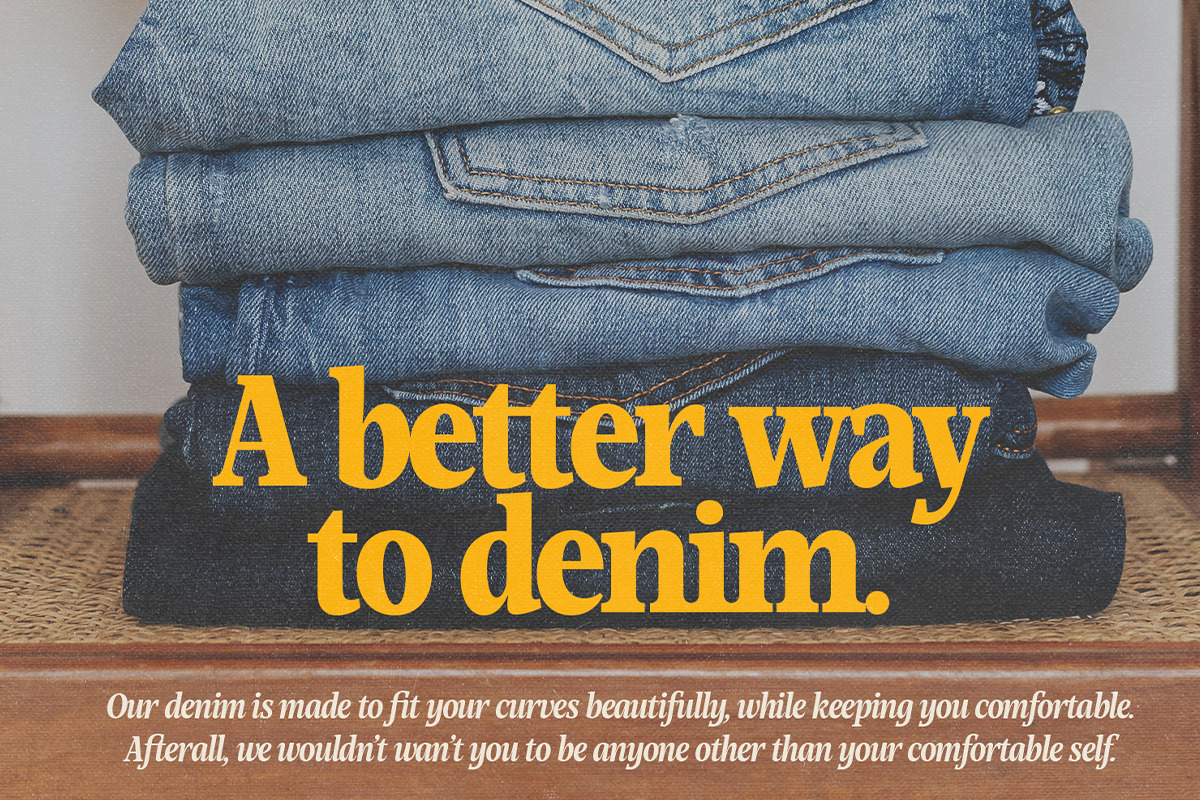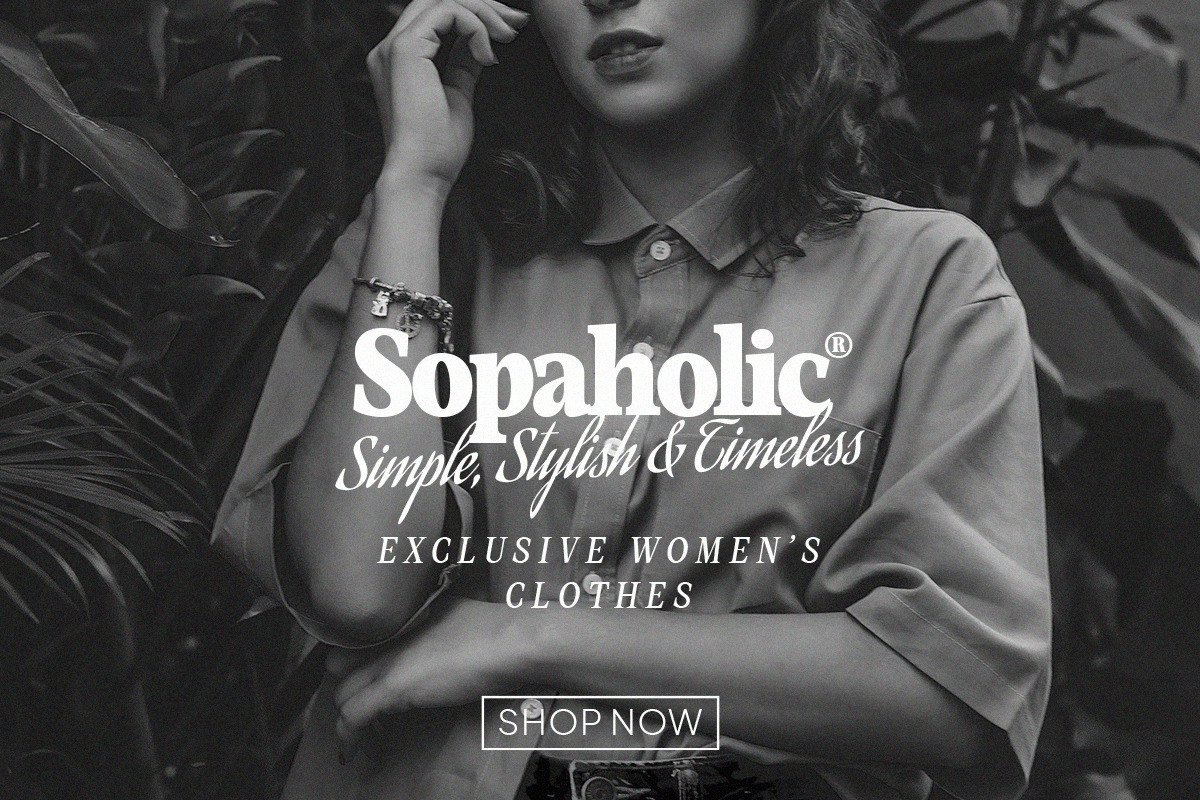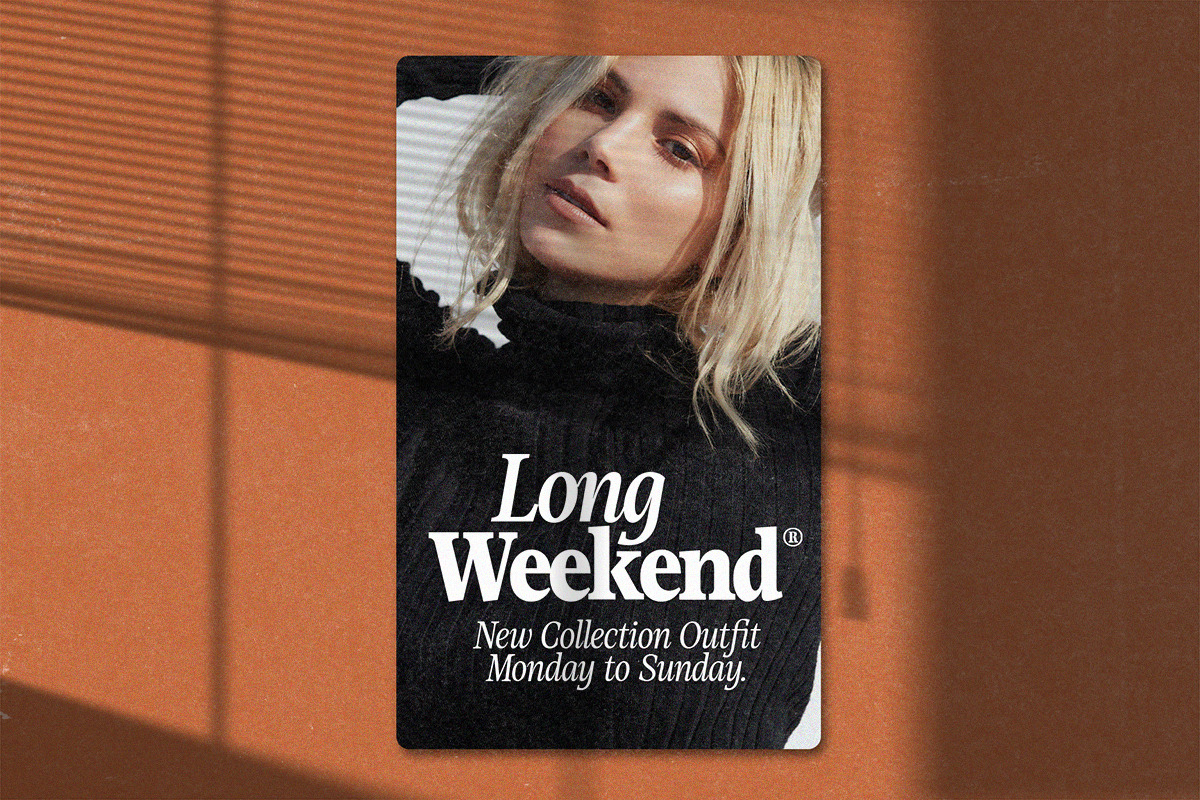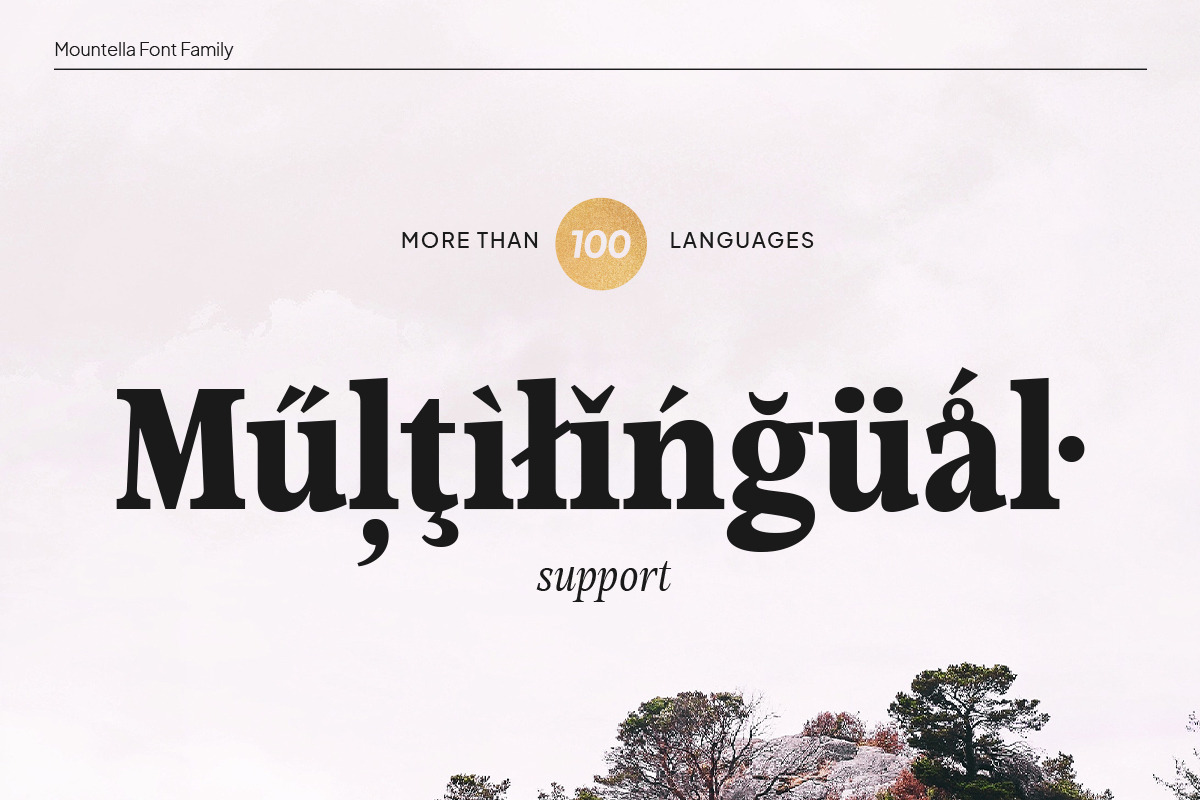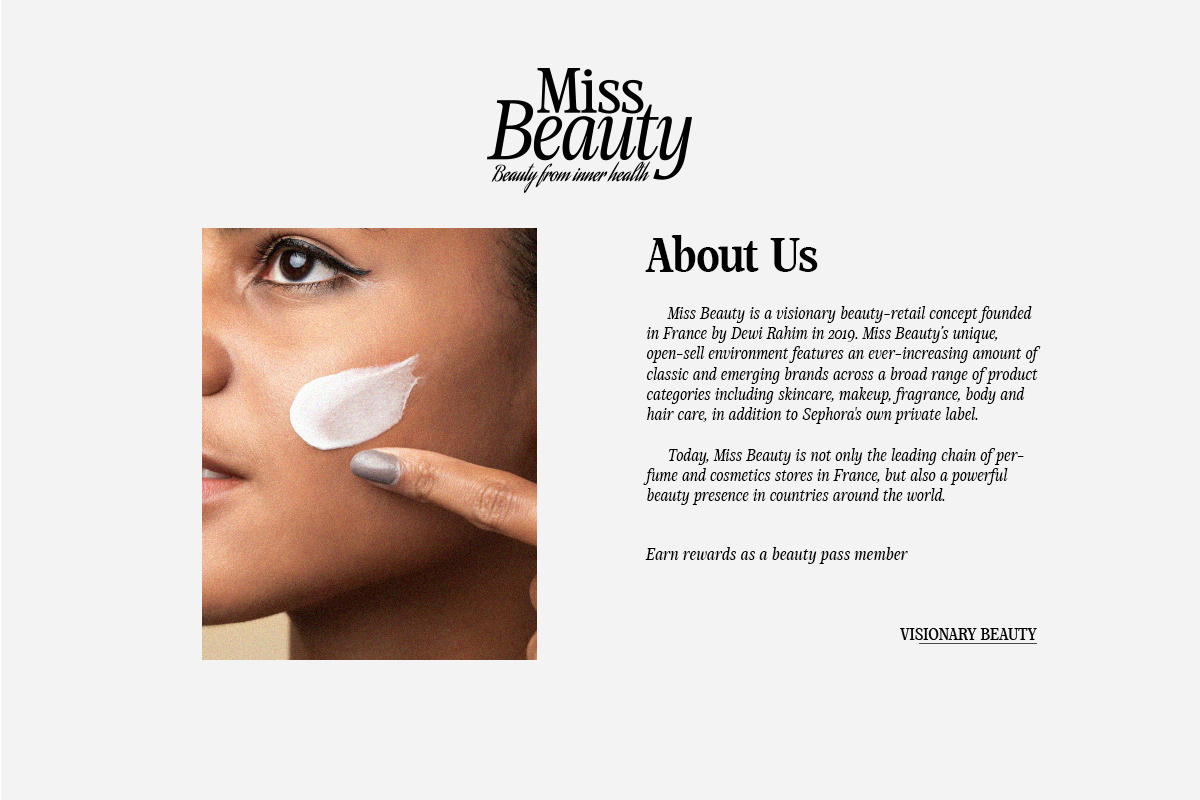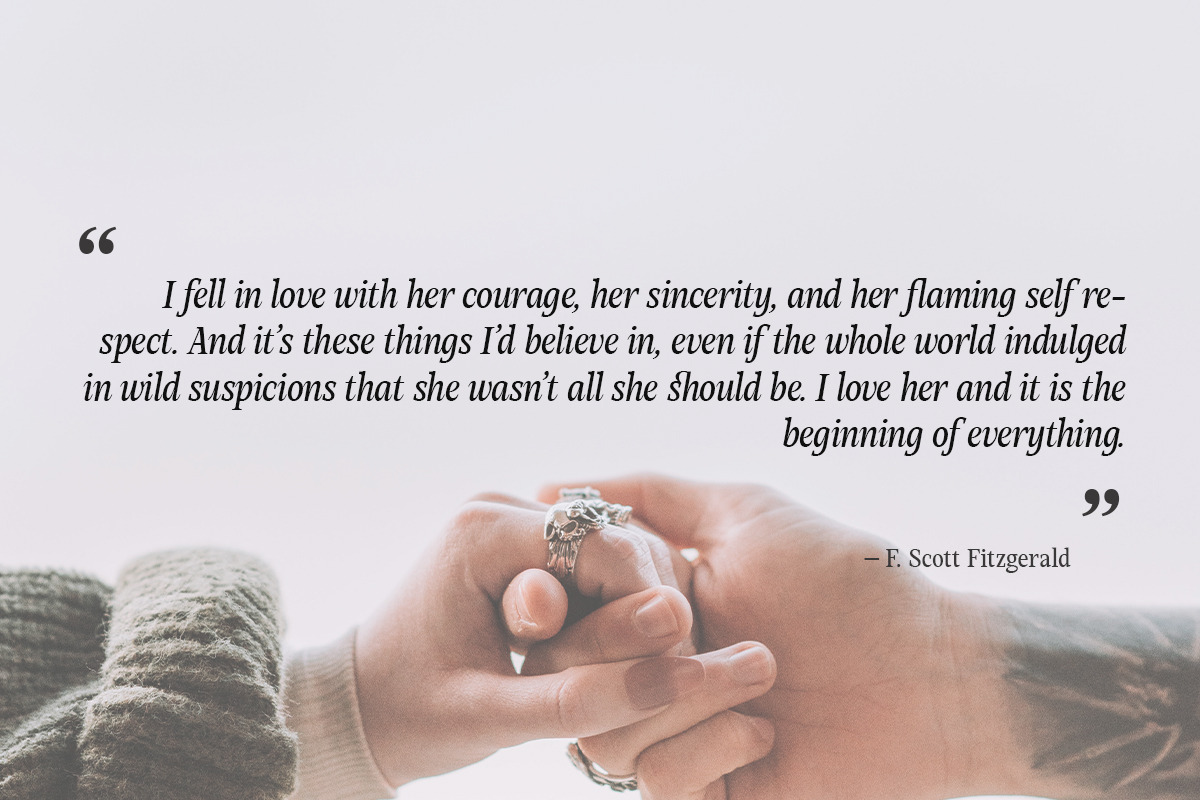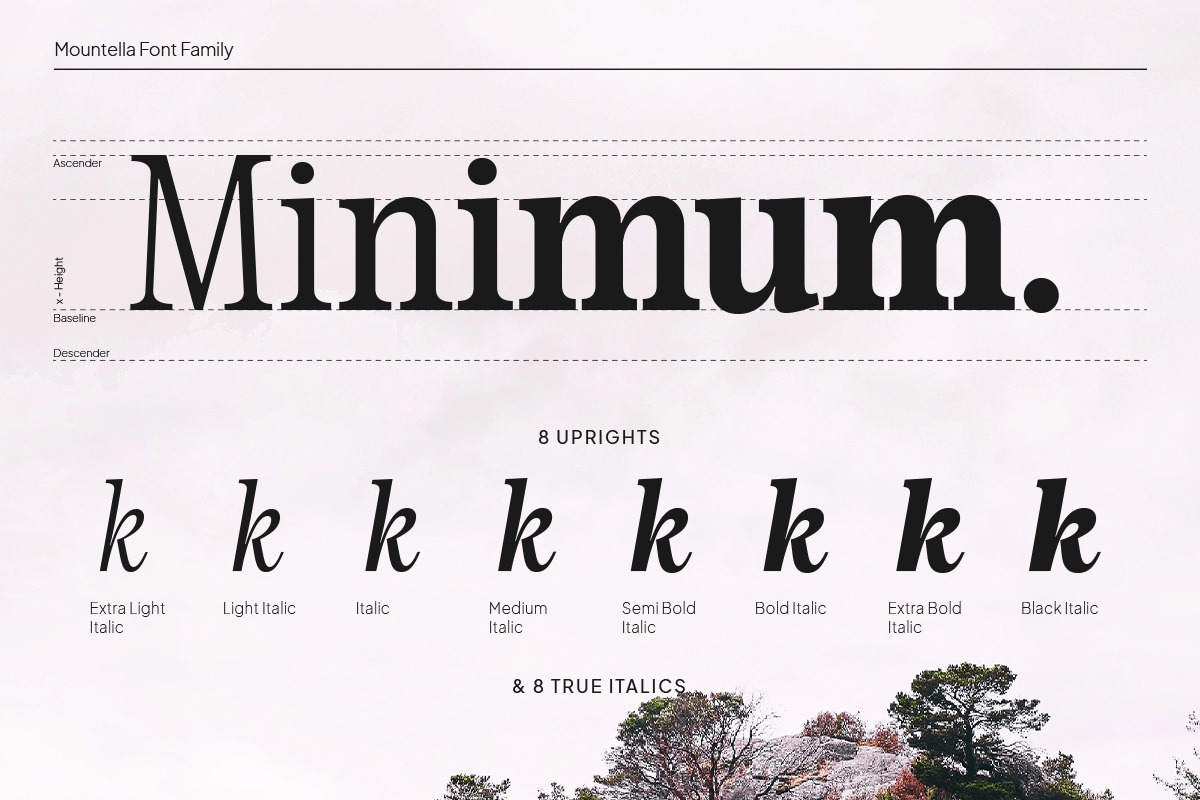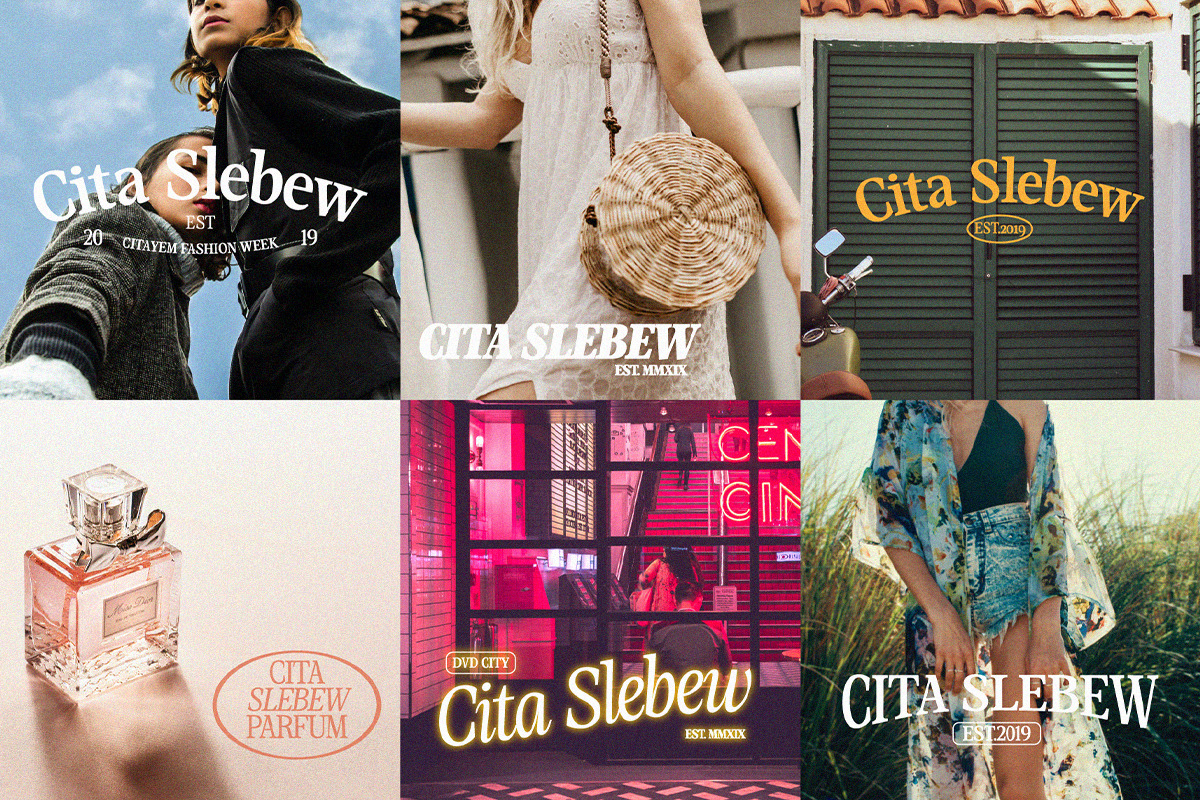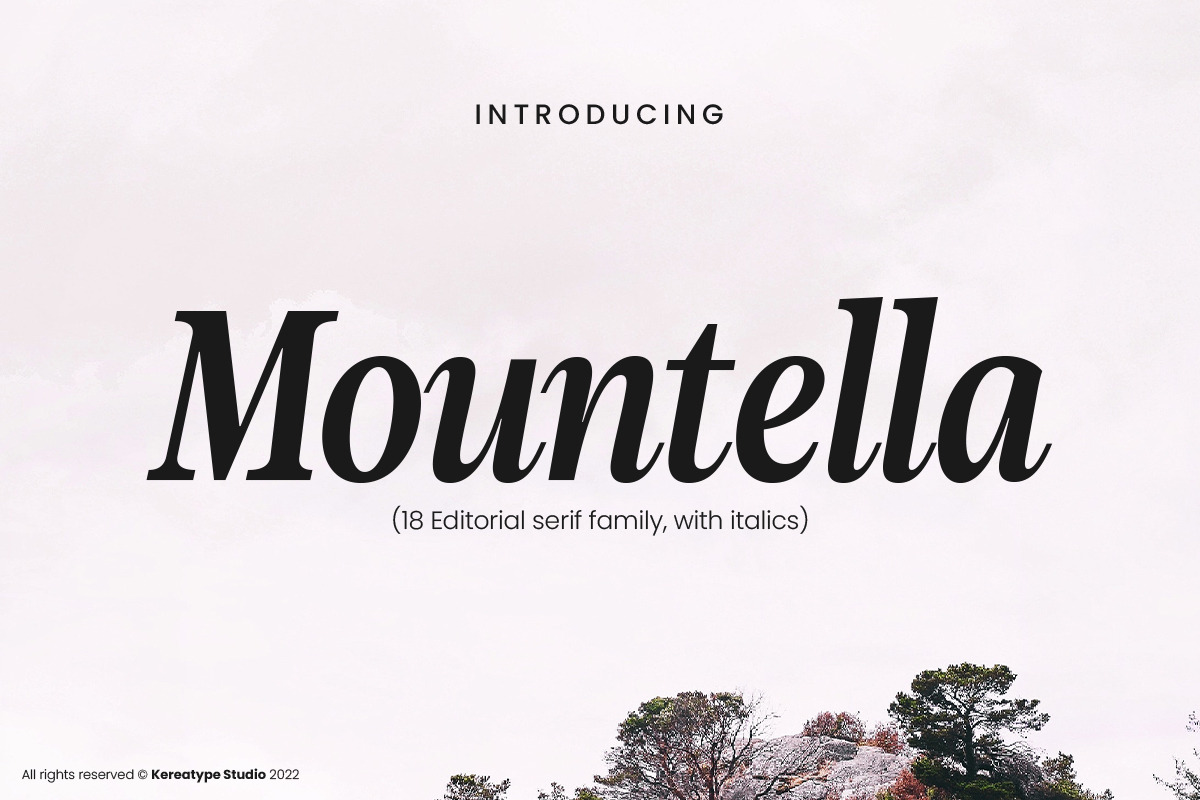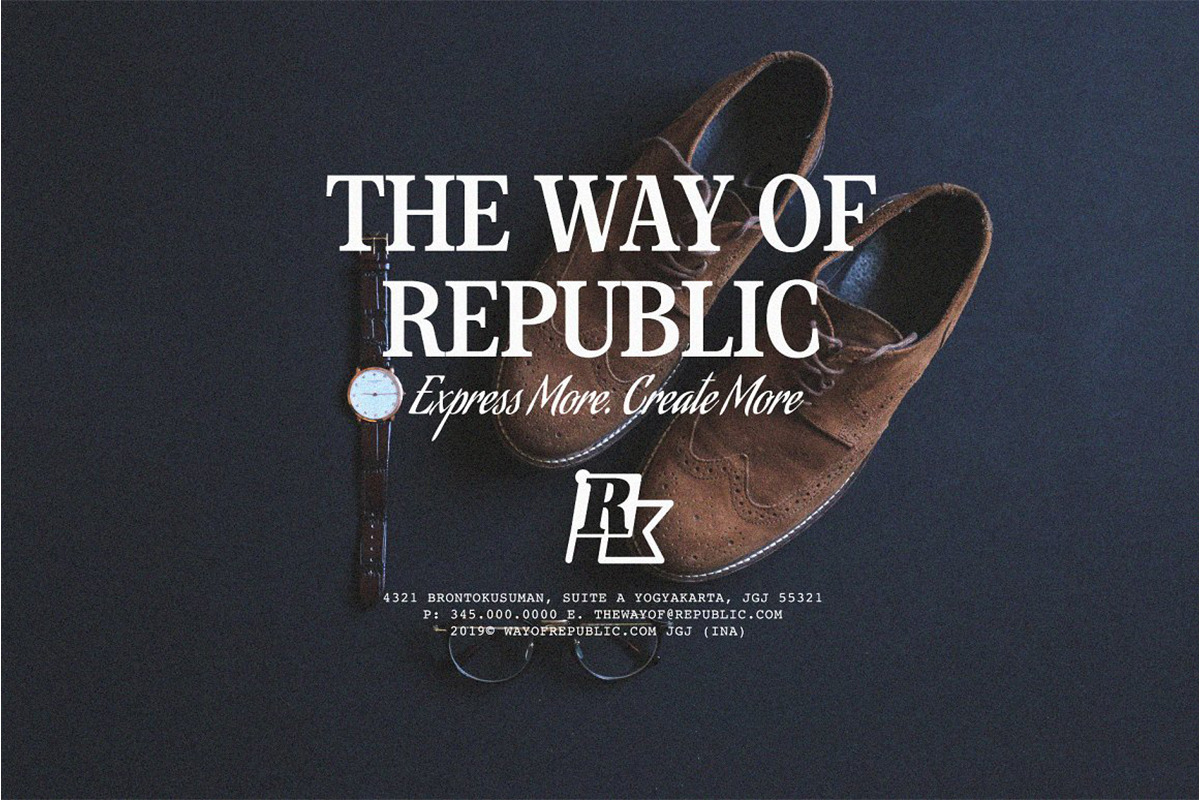
Mountella - 18 Serif Font Family
Mountella is a modern editorial serif font family that includes 18 fonts, uprights, italics, and 2 variable font from Extra Light to Black which has more than 500 characters, and still has all the nostalgic vibes!
Mountella is a beautiful serif family that includes many visual details, adding uniqueness that looks incredible in both large and small settings as a display and body text. Mountella can be used in high-end branding, logo designs, magazines, product packaging & invitations.
One thing to note about Mountella is the letter spacing. It was intentionally for clean reading if you wanted to use it for the body type, so I recommended setting the spacing a little tighter for display use (around -10 to -50 should do!).
Design Tips: combine the regular and italic, whether all in one word or body text for a logo or quote. Adjust your letterspacing to add more groove! Tighter letterspacing for large headers.
- Upper Case & Lowercase
- Standard & Discretionary Ligatures